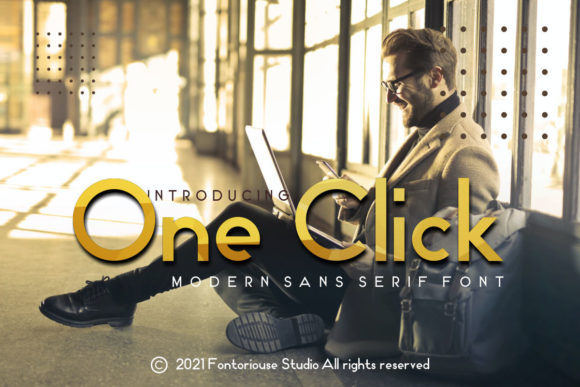
Prepare yourself to be mesmerized by "One Click," the epitome of elegance and sophistication in the realm of typography. This sans-serif font, meticulously crafted by the ingenious minds at Fontoriouse Studio, is not just a collection of letters; it's an artistic masterpiece that will transform your design projects into breathtaking works of art.
With "One Click," you unlock a world of creative possibilities, where your imagination runs wild and your designs take center stage. Its clean lines, sharp edges, and impeccable balance create a visual symphony that captivates and inspires. Whether you're a seasoned designer or just starting out, "One Click" is the perfect companion for your creative journey.
Step into the spotlight with "One Click's" versatility, a font that effortlessly adapts to any design challenge you throw its way. From company logos that exude professionalism to product labels that demand attention, "One Click" delivers a timeless appeal that leaves a lasting impression. Unleash your inner artist and create logotypes that command respect, invitations that evoke elegance, t-shirt designs that turn heads, and official office texts that radiate authority.
Experience the allure of "One Click," a font that speaks volumes without uttering a single word. Its innate ability to convey a sense of luxury and sophistication makes it the ideal choice for projects that demand a touch of class. Whether you're crafting a breathtaking wedding invitation, designing a sleek business card, or creating a captivating poster, "One Click" elevates your designs to new heights.
Dive into the world of "One Click" and discover a font that's as versatile as it is visually stunning. Its seamless integration with various design software ensures that your creative flow remains uninterrupted. With "One Click" by your side, you'll never be limited by the boundaries of ordinary fonts.